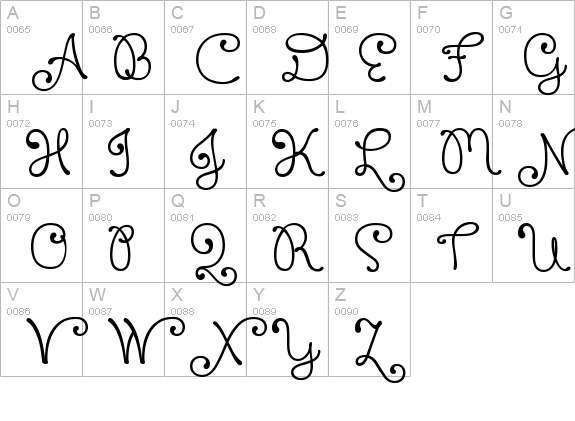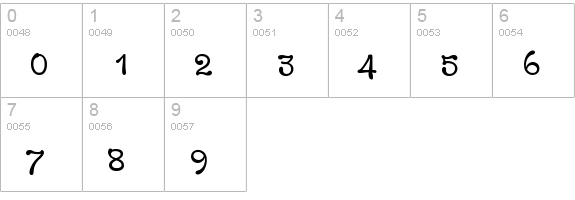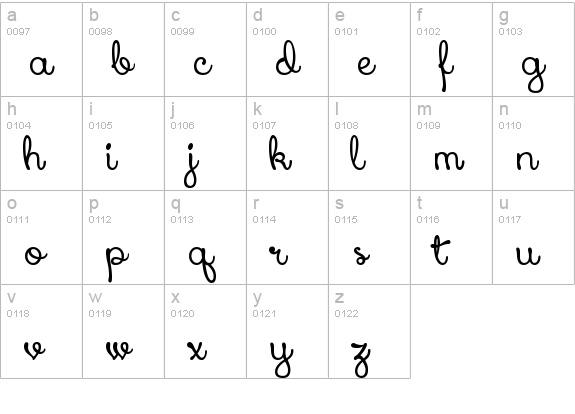
Xiomara Font Details
Introducing Xiomara, a stunningly elegant font that effortlessly combines classic charm with a modern twist. This versatile typeface is the perfect choice for anyone looking to add a touch of sophistication to their designs. With its graceful curves and delicate strokes, Xiomara captures attention and exudes a sense of refinement. Whether used for headlines, logos, invitations, or any other creative project, this font is sure to make a lasting impression. What sets Xiomara apart is not only its timeless appeal but also its accessibility. This extraordinary font is freely available to download at FontsMarket.com, making it accessible to designers, artists, and enthusiasts worldwide. Now, anyone can effortlessly elevate their projects with the beauty and elegance of Xiomara. Designed with meticulous attention to detail, Xiomara is crafted to perfection, ensuring flawless legibility in any size or format. Its wide range of weights and styles allows for endless possibilities, enabling you to create unique and captivating designs that truly stand out. Whether you're working on a branding project, a wedding invitation, or simply seeking to add a touch of sophistication to your personal projects, Xiomara is the ideal choice. Its timeless beauty and accessibility make it a must-have font for anyone seeking to make a statement. Download Xiomara for free at FontsMarket.com and unleash your creativity with this enchanting font. Elevate your designs to new heights and captivate your audience with the breathtaking elegance of Xiomara.